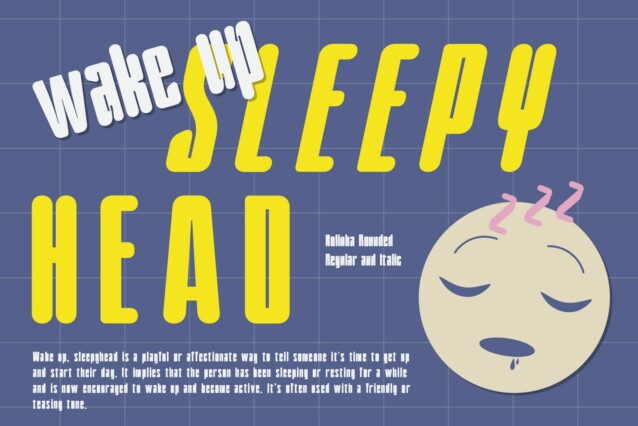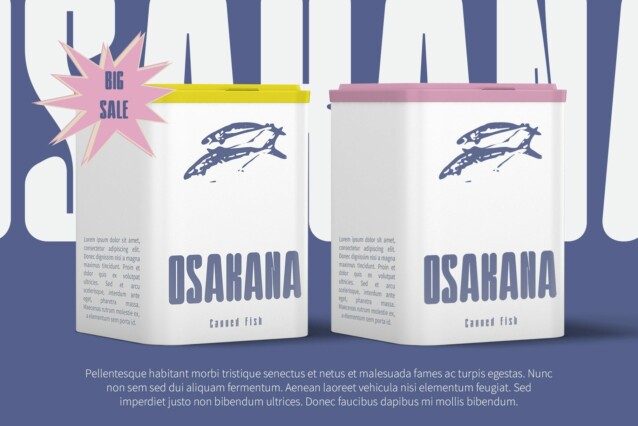
Kolinka Rounded Font
Kolinka Rounded Font is a bold sans-serif font that masterfully combines inktrap and rounded forms. The inktraps introduce sharpness and clarity, ensuring enhanced legibility in both print and digital formats, while the rounded edges soften the overall look, creating a friendly and modern aesthetic.